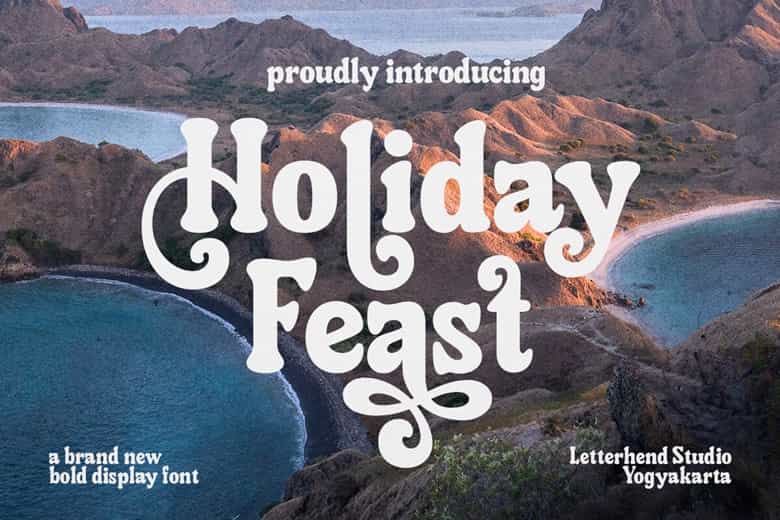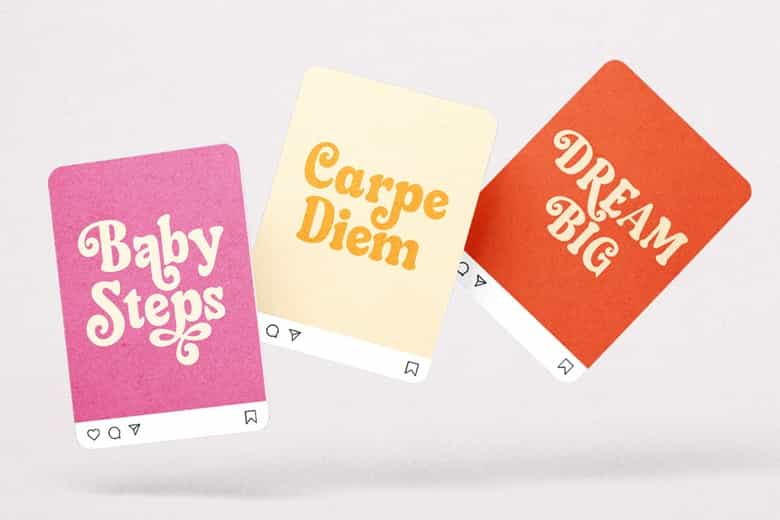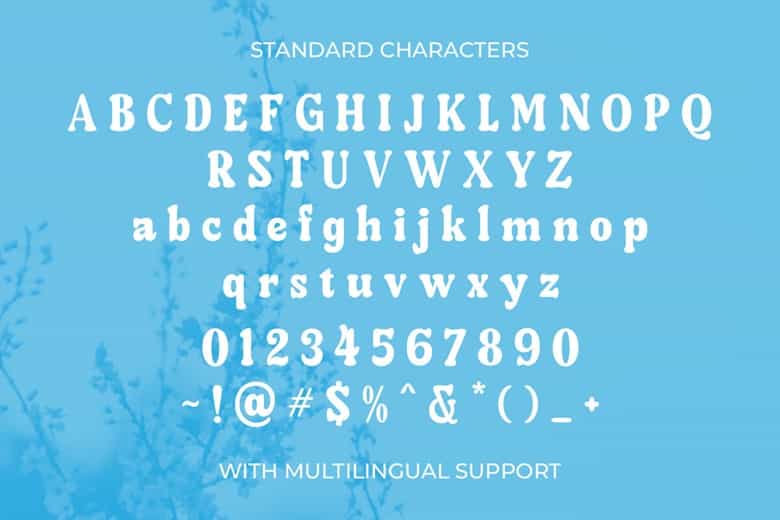
Discover Holiday Feast Font, part of the Serif Display Retro collection—a versatile and unique font perfect for adding a personal touch to your projects. Download it for free and enjoy crafting designs with style, from invitations to social media posts. This font is available exclusively for personal use, giving you the freedom to create without limits. Unlock your creativity with Holiday Feast Font today!
Holiday Feast is a lively and cute font that will add the holiday atmosphere to your creations. It is bolder, more fluent, and has more curves with swash and gives a warm, happy and traditional yet fashionable appeal. Ideal for holiday-related work, endorsement, invitations, gift-wrapping, designs, promotion, and posters, it suits projects to bring personality to your work.